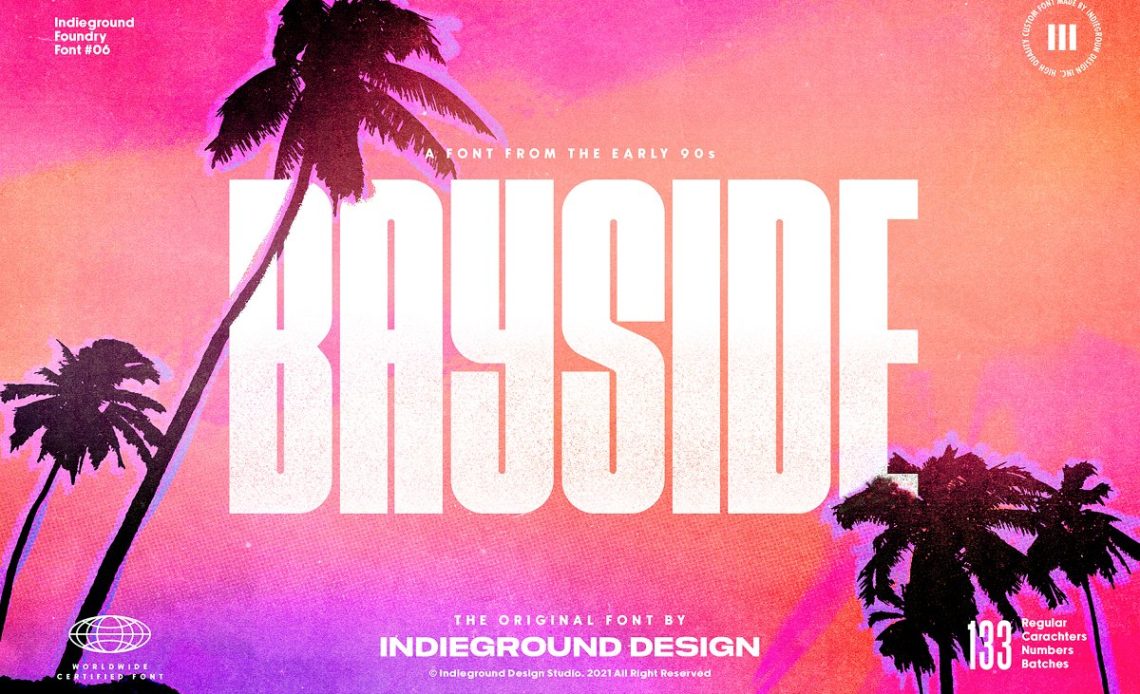
Looking for the best font style to make your posters stand out? Look no further than Bayside Font, the latest creation from the talented team at Indieground Design.
This condensed sans-serif font is perfect for those looking to capture the retro vibes of the 80s and 90s. It's inspired by the summer retro atmospheres of these decades and is perfect for use in elegant contexts reminiscent of Miami Deco Art of the 80s. But it's not just limited to that - the Bayside Font also looks amazing with the neon color gradients of the 90s.
Not only is it ideal for retro-themed projects, but Bayside Font is also perfect for modern artworks. It helps to optimize space and is perfect for heavy titles, highlighting and giving boldness to the typography of your artworks. With three different condensed font-weights and their full character sets included in this regular commercial version, you're getting the best value for your money.
And it's not just about value - Bayside Font is also incredibly versatile, making it the perfect font for a wide variety of projects. Use it for posters, flyers, advertisements, social media graphics, and more. Its unique retro style and condensed design make it perfect for grabbing attention and standing out in a crowded market.